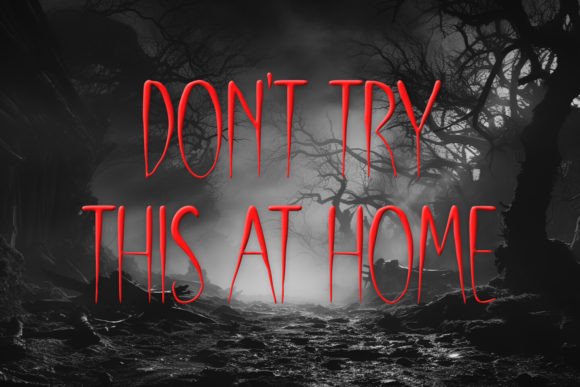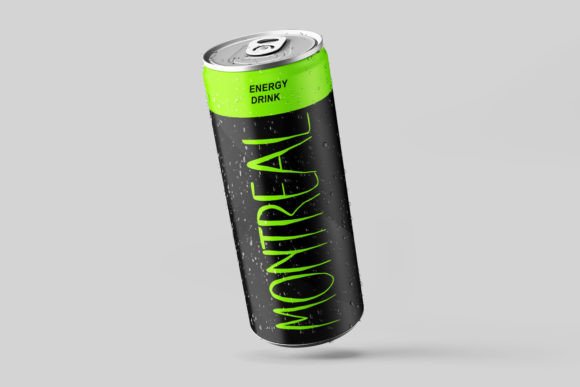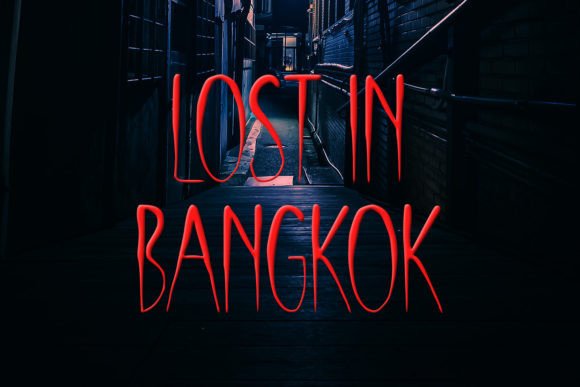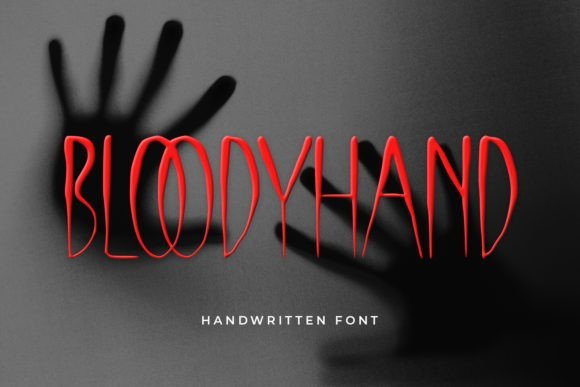
Introduction to Bloody Hand Font
BLOODY HAND is a creepy handwritten font.
It is great for branding, quotes, logos, t-shirt designs, tote bag designs, cards, banners, social media, and more .
Key Features of Bloody Hand Font
Why Choose Bloody Hand Font?
Bloody Hand Font offers exceptional quality and versatility, making it a valuable addition to your design toolkit. Whether you’re creating for personal projects or commercial use, Bloody Hand Font delivers professional results.